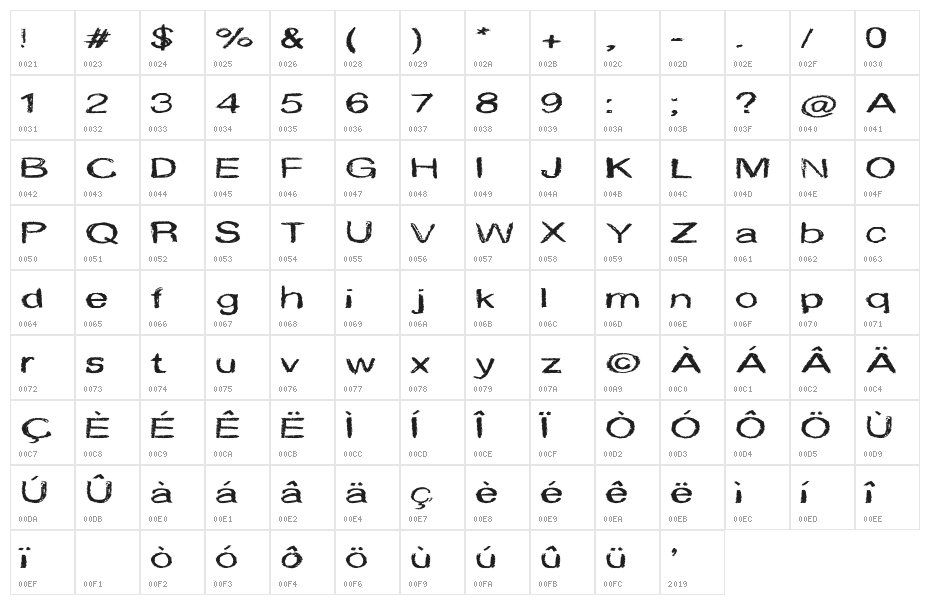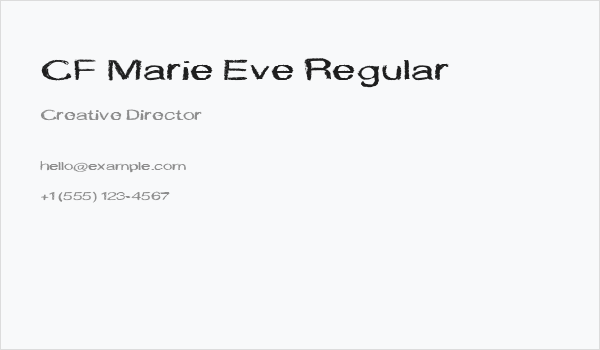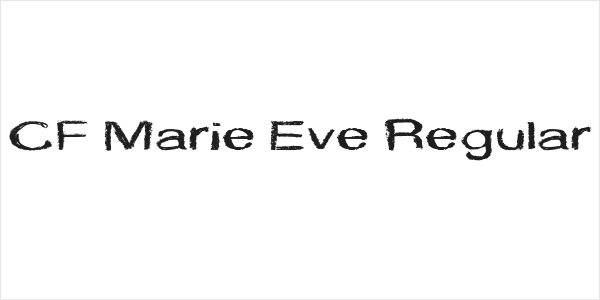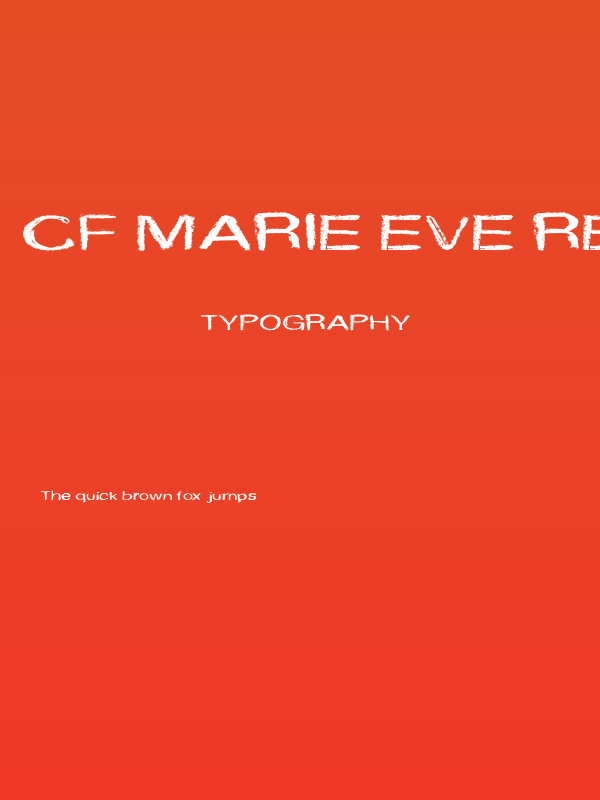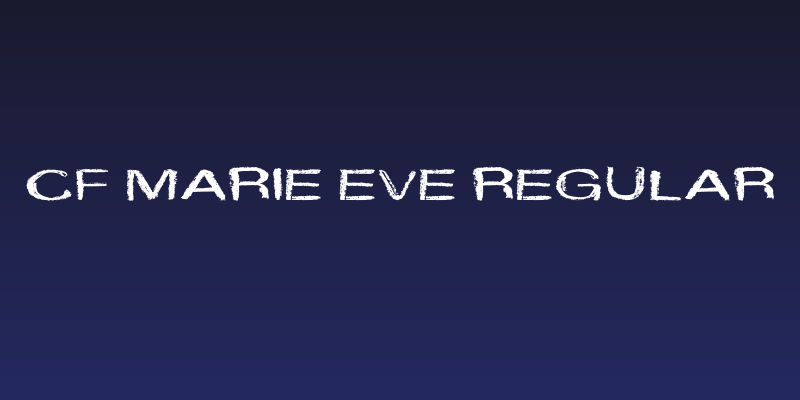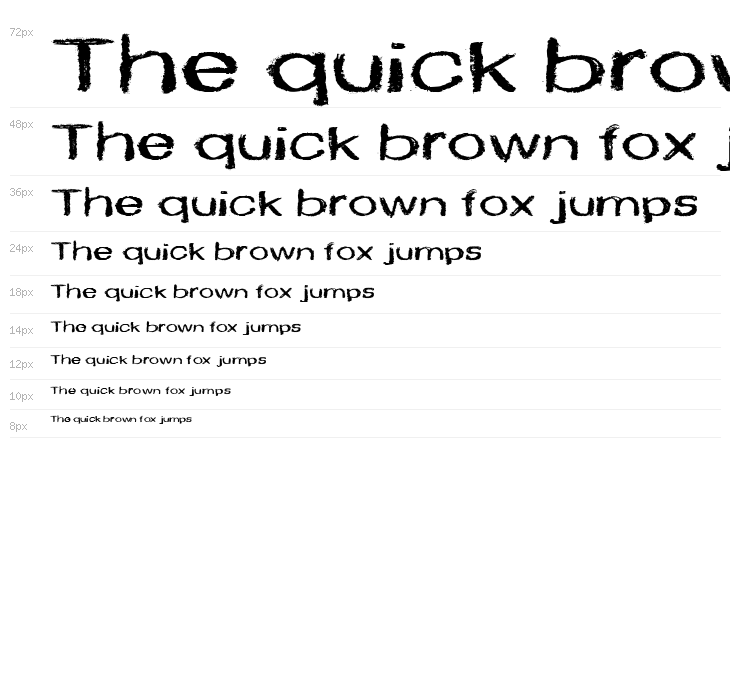
CF Marie Eve Regular Font
CF Marie Eve Regular Description
This font features a textured, hand-drawn style that gives it a unique and artistic appearance. The characters are bold and slightly irregular, with a rough, sketch-like quality that adds a sense of dynamism and creativity. The uppercase and lowercase letters maintain a consistent style, while the numbers and special characters complement the overall aesthetic. This font's distinctive look makes it ideal for projects that require a personal touch or an informal, creative vibe.
| Overall Style | Artistic, Creative |
| Use Case | Headlines, Posters, Branding |
| Proposed Projects | Ideal for creative projects such as posters, art prints, branding materials, and invitations that require a personal and artistic touch. |